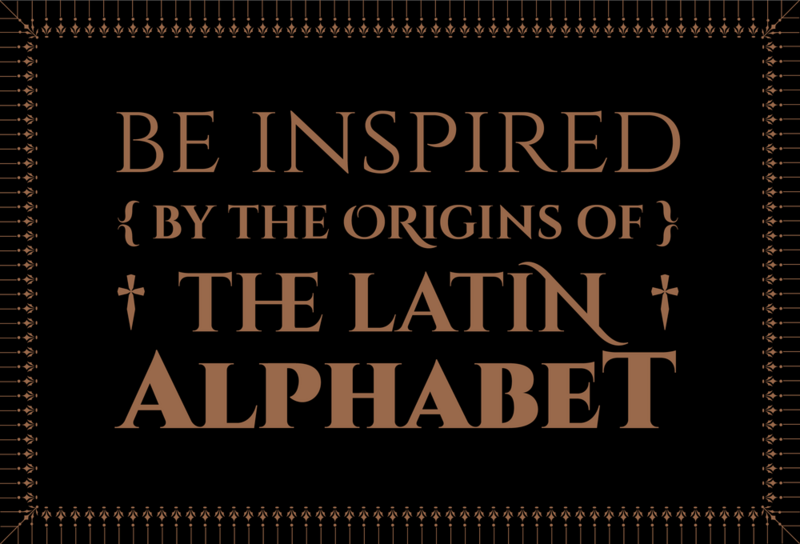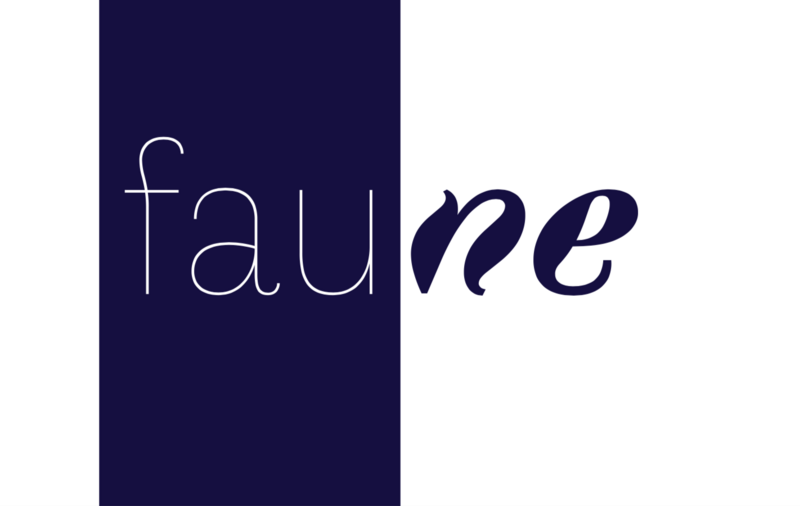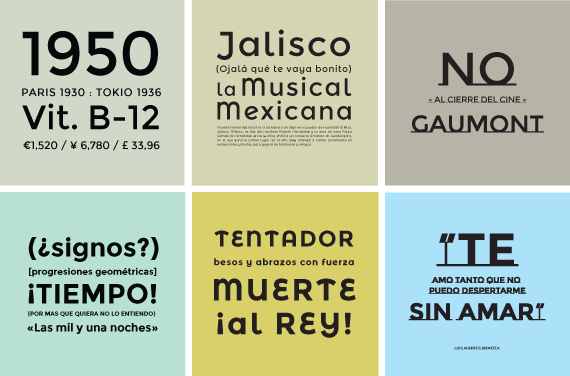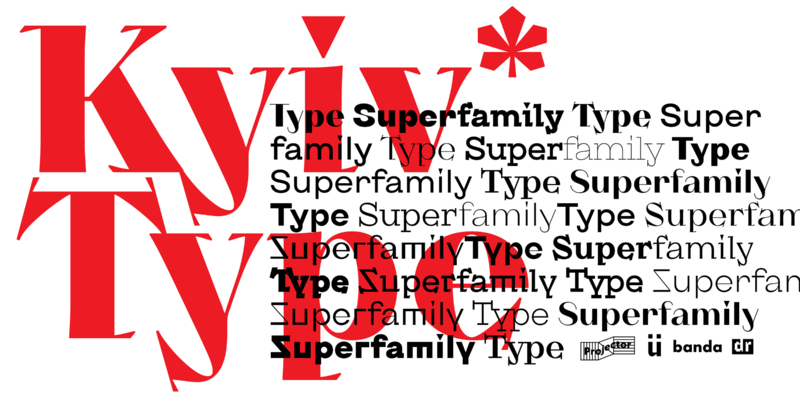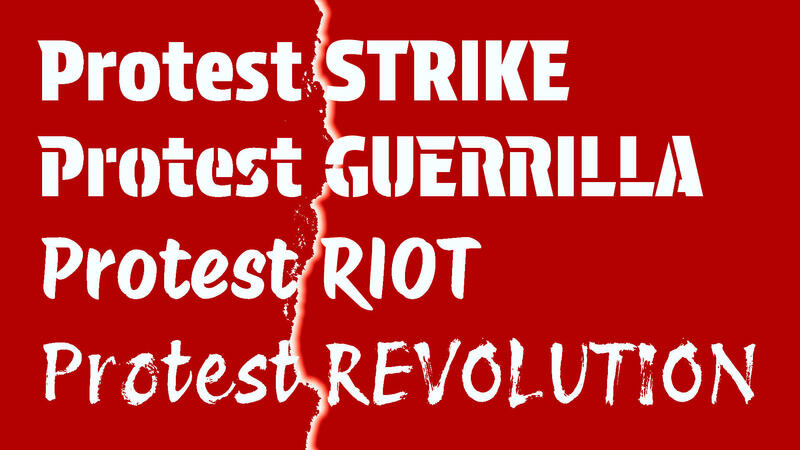
Not suitable for longer text, but extensive enough to be versatile. Free for commercial use, but not necessarily libre.
Good free display families (2023)
Cormorant
Cormorant is a free display type family developed by Christian Thalmann. The project currently comprises a total of 45 font files spanning 9 different visual styles (Roman, Italic, Infant, Infant Italic, Garamond, Garamond Italic, Upright Cursive, Small Caps, and Unicase) and 5 weights (Light, Regular, Medium, SemiBold, and Bold.)
Syne
A 5-style type family originally designed for the art center Synesthésie, near Paris, France. It has then been released under open-source license.
Compagnon
A typeface family composed of five distinctive styles, that finds its inspiration in the online archives of Typewriter Database specimens and combines different periods of the history of typewriter typefaces.